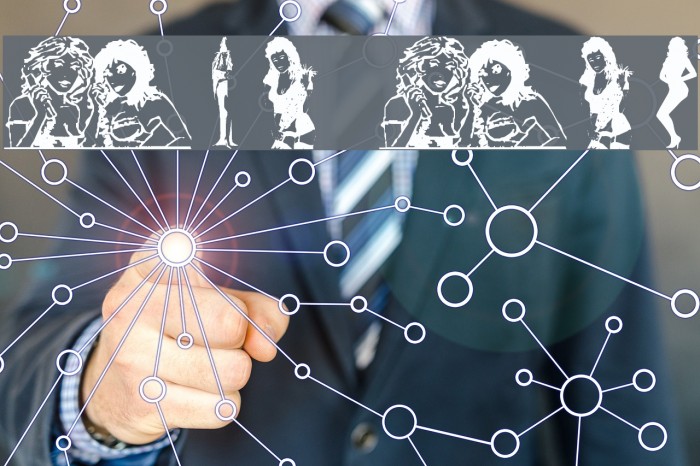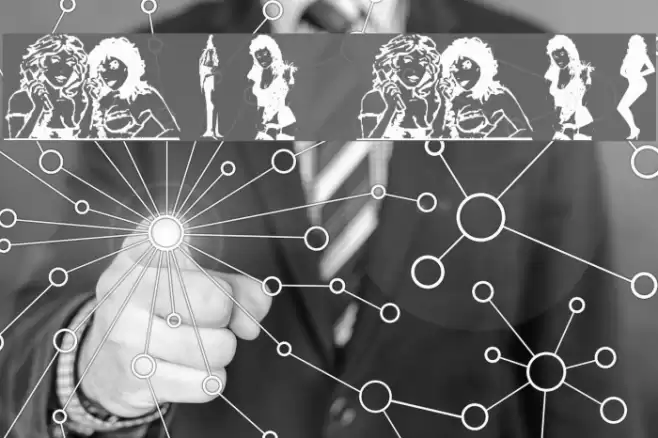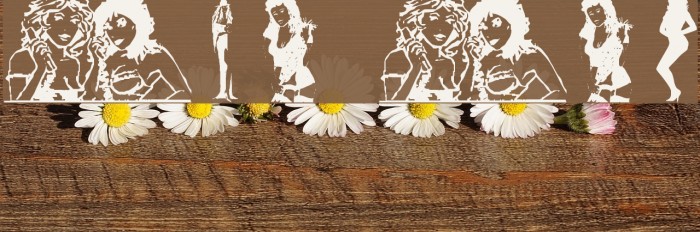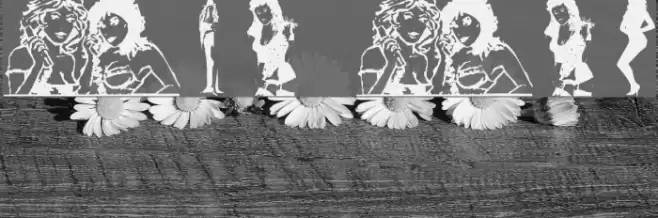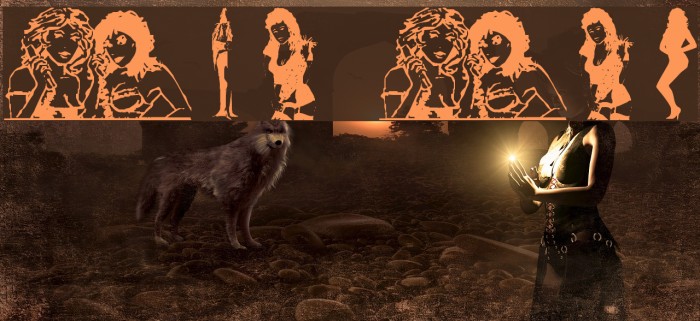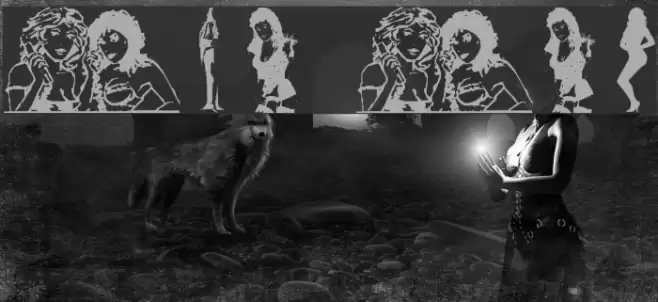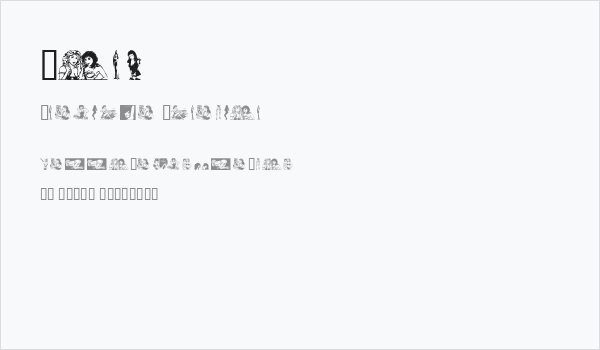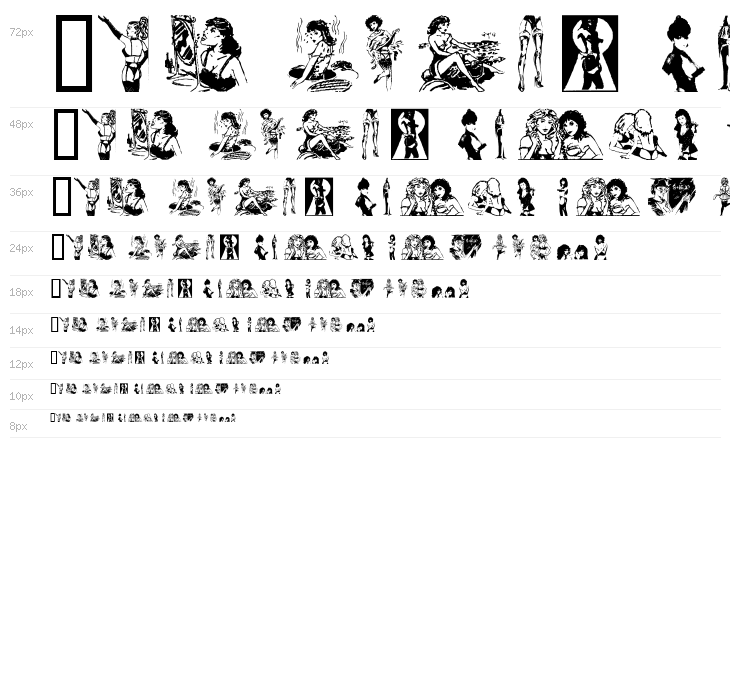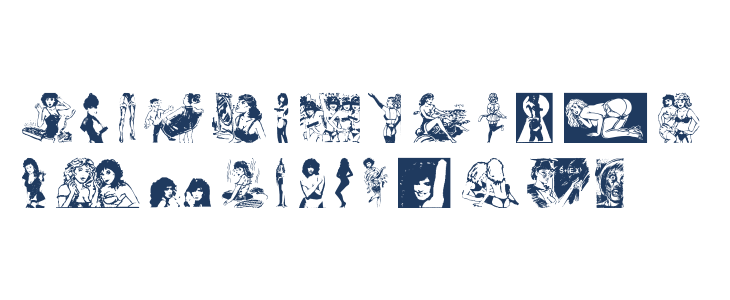
Porn Font
Porn Description
A decorative font consisting of black and white silhouette illustrations of adult-themed figures and scenes. The font characters are detailed pictorial representations rather than traditional alphanumeric glyphs.
| Overall Style | Explicit, illustrative, decorative |
| Use Case | Specialty logos, themed headlines, novelty print designs |
| Proposed Projects | Use in adult entertainment branding, themed posters, novelty designs, or niche graphic projects requiring explicit visual elements. |